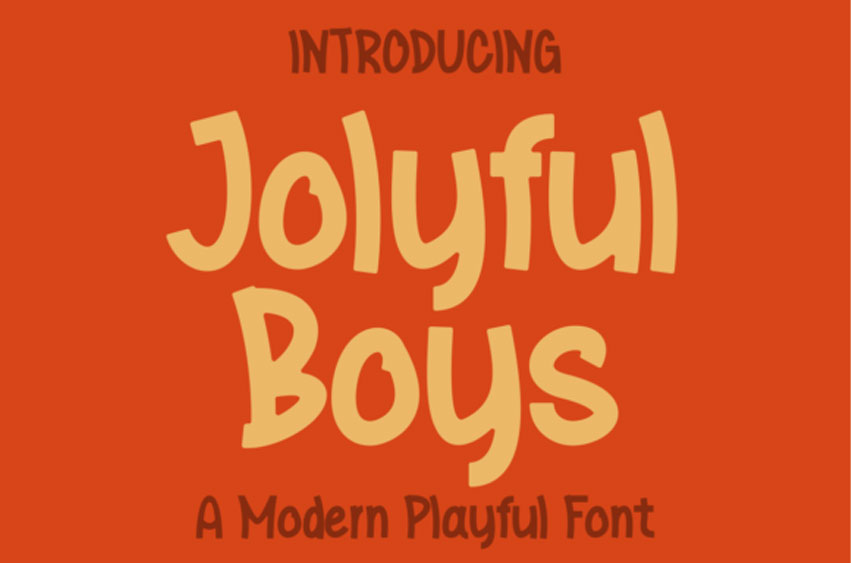
Jolyful Boys Font
Jolyful Boys Font is a fun and quirky display font that is perfect for adding personality to your designs.
Its playful curves and unique letterforms make it stand out from the crowd.